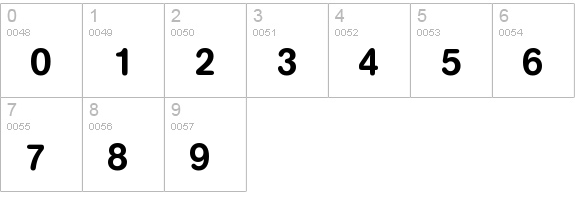
Arezzo-Rounded-Demi is a sub-bold, structured variant in the Arezzo typeface family \xE2\x80\x94 well suited to sub-headlines and emphasised passages.
Arezzo-Rounded-Demi is a modern and versatile font that adds a touch of sophistication to any design project. With its rounded edges and bold weight, this typeface exudes a sense of strength and elegance. The clean and sleek lines of Arezzo-Rounded-Demi make it perfect for a wide range of applications, from branding to editorial design. What's even better is that Arezzo-Rounded-Demi is available for free download at FontsMarket.com. This means you can easily incorporate this stylish font into your projects without breaking the bank. So why wait? Download Arezzo-Rounded-Demi today and elevate your designs to the next level!